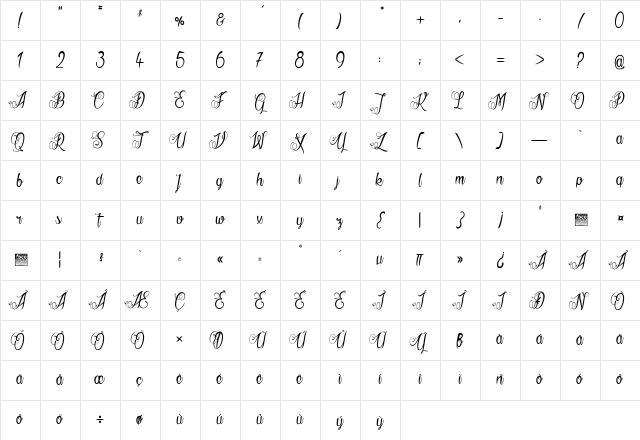
Complete La Cites Reines_PersonalUseOnly Regular glyph index. Displaying only characters natively supported by La Cites Reines_PersonalUseOnly Regular font.
La Cites Reines_PersonalUseOnly is a composed and adaptable typeface that performs quietly and consistently across a wide range of design contexts.
Who designed the La Cites Reines_PersonalUseOnly Regular font?